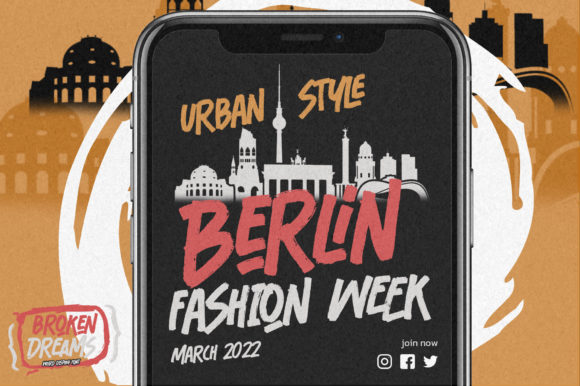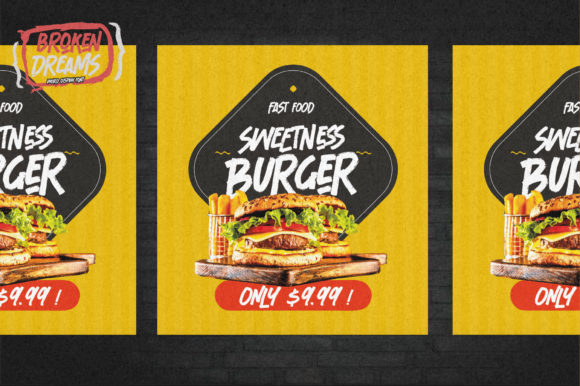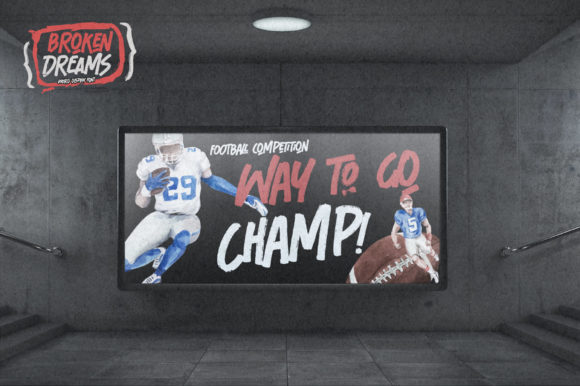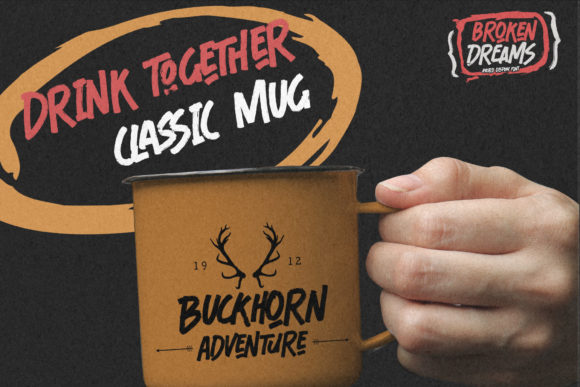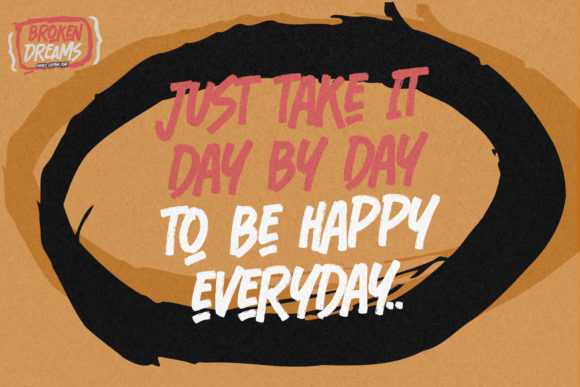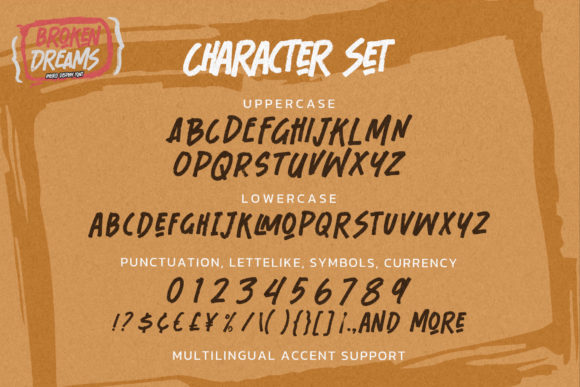
The Magic of Broken Dreams Font: Bringing Your Creative Vision to Life
Have you ever stared at a blank canvas, a blank sheet of paper, or a blank screen, desperate to bring your creative vision to life? You’ve got a spark, a burst of inspiration, but the words just won’t flow. It’s moments like these that we designers live for – the thrill of creation, the rush of possibility.
That’s where Broken Dreams Font comes in – a beautiful, hand-drawn brush font that adds a touch of whimsy and wonder to any design. Perfect for watermarks, logos, branding, invitations, and more, this font is a must-have for any creative project. With its authentic, classy characters and natural brush style, Broken Dreams Font will transport your designs to a world of beauty and sophistication.
Broken Dreams Font Key Features
- Font Style: A distressed, vintage-inspired font with a distressed look, perfect for creating a nostalgic or retro feel.
- Unique Characteristics: The font features unique, hand-crafted imperfections, such as texture, wear, and tear, giving it a distinctive, one-of-a-kind look.
Broken Dreams Font Review
As a designer, I was excited to dive into the “Broken Dreams Font” and see what it had to offer. Overall, I found it to be a unique and quirky font that could add some interesting flair to certain projects.
- The font’s distressed, vintage aesthetic is well-executed, making it perfect for retro-themed designs.
- The font’s irregularities and imperfections add a touch of authenticity, giving it a handmade feel.
- The font is highly legible, even at smaller font sizes, making it a great choice for body text.
- The font’s irregularities can sometimes make it difficult to read, especially in longer blocks of text.
- The font may not be suitable for formal or professional projects, as it can come across as too casual or unpolished.
- The font’s vintage aesthetic can also make it feel dated, which may not be desirable for projects that require a more modern look.
Overall, I think the “Broken Dreams Font” is a great addition to any designer’s toolkit, but it’s not without its limitations. It’s perfect for adding some personality to projects that require a vintage or distressed look, but it may not be the best choice for more formal or professional work.
The Broken Dreams font is ideal for creative and emotional designs, such as:
1. Quotes and sayings with a nostalgic or melancholic tone.
2. Titles and headings for artistic or literary projects.
3. Emotive and expressive typography for social media graphics or advertisements.